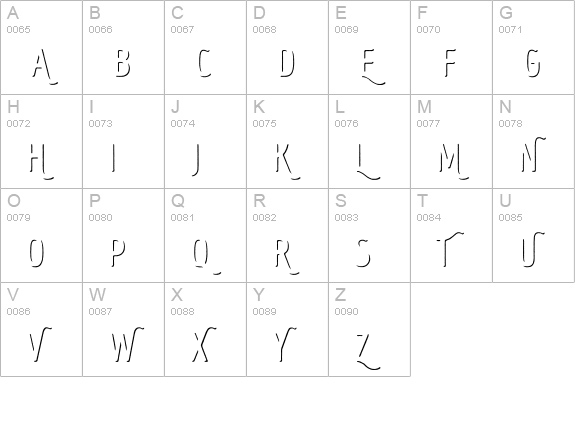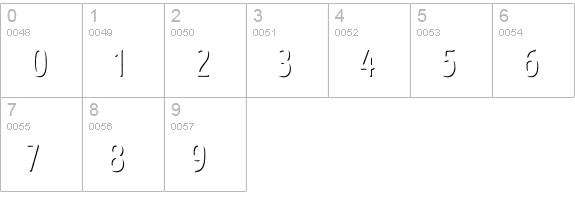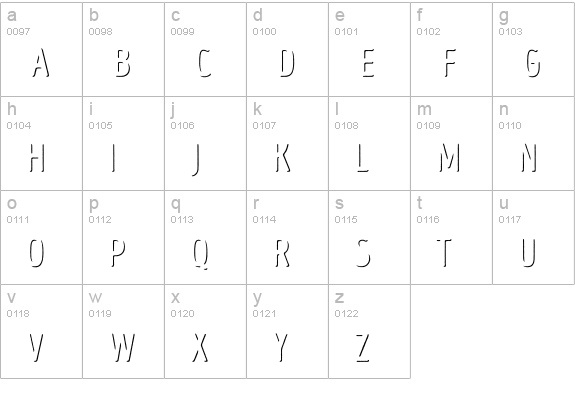
Intro Head R UC Shade Font Details
Intro Head R UC Shade font is a modern and stylish typeface that exudes sophistication and elegance. Its bold uppercase letters are intricately shaded, adding depth and dimension to any design project. This font is perfect for creating eye-catching headlines, titles, and logos that demand attention. With its clean lines and contemporary aesthetic, Intro Head R UC Shade font brings a touch of class to any creative endeavor. Best of all, this font is available for free download at FontsMarket.com. So whether you're a designer looking to enhance your projects or a hobbyist seeking to add a touch of professionalism to your creations, Intro Head R UC Shade font is the perfect choice. Download it today and elevate your designs to the next level with this stunning typeface.